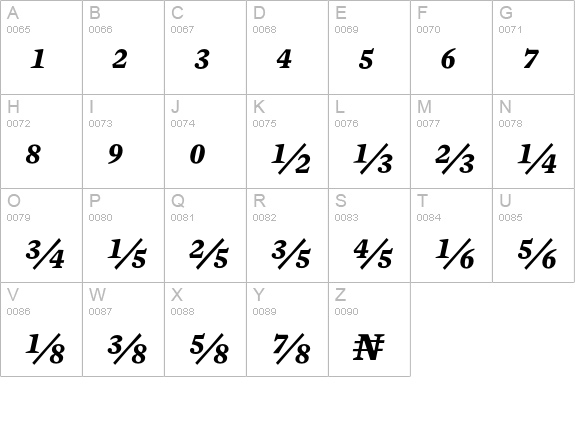
Mercury Numeric G2 Bold Italic is a strong, high-contrast, italic variant in the Mercury typeface family \xE2\x80\x94 well suited to headlines, attention-grabbing titles, and strong calls-to-action.
The Mercury Numeric G2 Bold Italic font is a stylish and modern typeface that exudes confidence and sophistication. Its bold and italic design adds a touch of flair to any project, making it perfect for headlines, posters, and branding materials. With its clean lines and strong presence, this font is sure to make a statement. What's even better is that the Mercury Numeric G2 Bold Italic font is available for free download at FontsMarket.com. Whether you're a designer looking to add a new font to your collection or a business owner in need of a striking typeface for your marketing materials, this font is a versatile choice that won't cost you a thing. Download it today and see how it can elevate your designs to the next level.